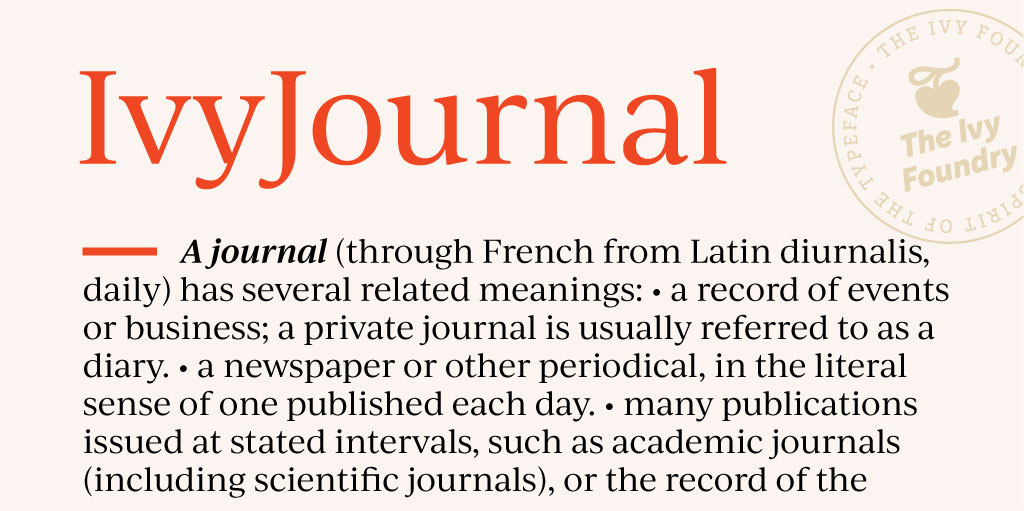
Ivy Journal Font
Ivy Journal Font finds perfect application in academic publications, scholarly research papers, literary magazines, university press books, educational journals, intellectual conference materials, prestigious library systems, thoughtful editorial content, sophisticated documentary films, and erudite cultural institutions requiring scholarly elegance and intellectual gravitas.
What makes Ivy Journal Font exciting is its masterful embodiment of academic excellence and intellectual sophistication through typography that conveys scholarly authority while maintaining exceptional readability for extended reading sessions. This distinguished typeface features refined letterforms with classical proportions and subtle contemporary adjustments that reflect the timeless pursuit of knowledge and intellectual discourse. The font's scholarly character and academic credibility make it essential for projects seeking to communicate educational excellence, research integrity, and the enduring value of intellectual achievement in higher education.
Ivy Journal Font belongs to the academic serif font family, specifically designed for scholarly publishing and educational applications where readability and intellectual authority are paramount. This font family typically includes regular, medium, bold, and italic variants with extensive scholarly ligatures and academic symbols, providing designers with comprehensive typographic tools for creating authoritative educational communications that honor intellectual traditions.
The Ivy Journal Font Free Download offers designers access to prestigious academic typography that transforms educational projects into scholarly masterpieces. Whether you're developing university brand identities, designing academic conference materials, or creating educational publication layouts, this font delivers unmatched intellectual sophistication and academic credibility.
Perfect for university publishers, academic institutions, scholarly researchers, and educational designers, this typeface excels in body text, academic headers, and intellectual applications. The font's scholarly presence enhances research publications, educational materials, academic conferences, and institutional communications where intellectual authority and educational excellence are fundamental requirements.
The expertly crafted letterforms maintain superior legibility for extended academic reading while expressing distinctive scholarly character across all educational contexts. From detailed research dissertations to large-scale university campus signage, Ivy Journal Font performs consistently while preserving its intellectual aesthetic and academic appeal.
Modern designers value how this font bridges traditional academic values with contemporary design sensibilities, creating educational materials that feel both intellectually rigorous and visually engaging. Its comprehensive character set and scholarly features ensure seamless integration into complex academic projects and international educational institutions.